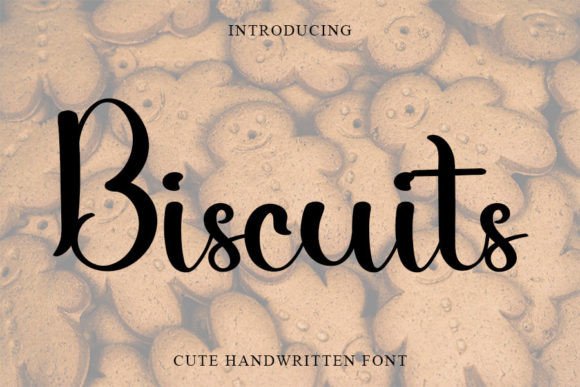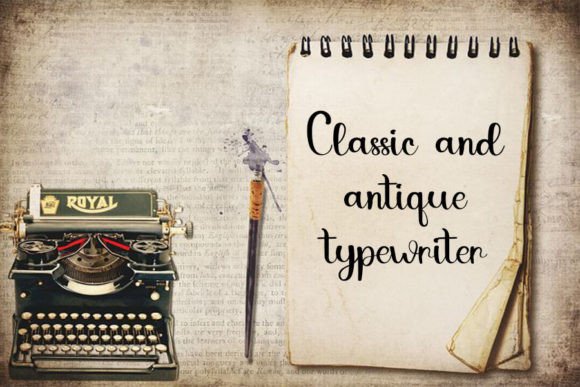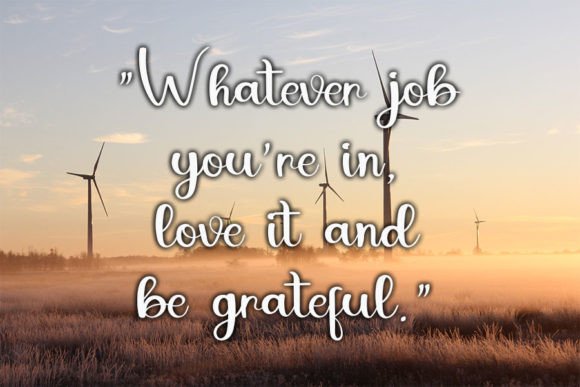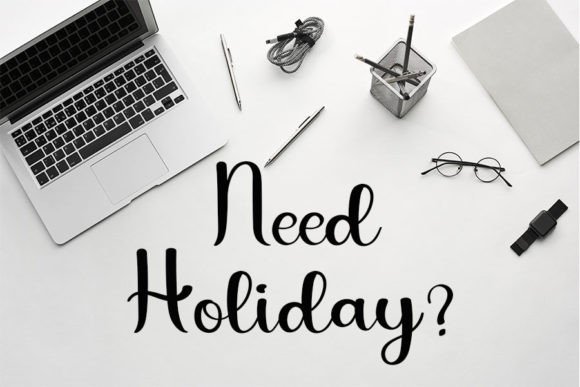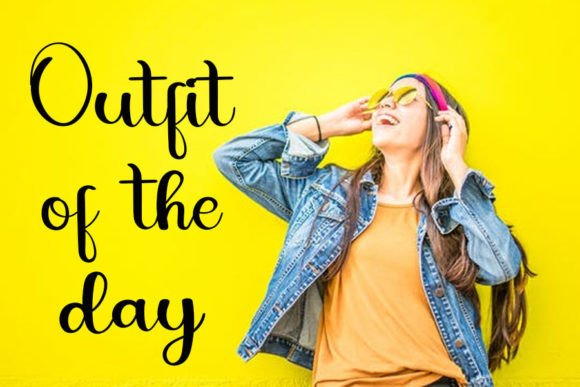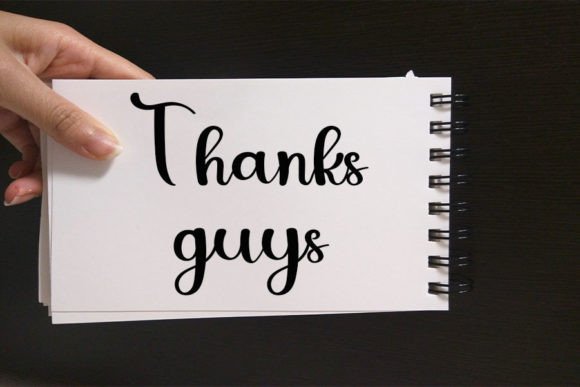
Biscuits Font
Biscuits Handwritten Font – Cute and Casual Typeface
The Biscuits Handwritten Font is a playful and stylish typeface that brings friendliness and charm to any design. With its casual handwritten strokes and natural flow, it offers a unique balance of simplicity and creativity. Whether you’re creating Instagram posts, greeting cards, or DIY calligraphy projects, this font ensures your work feels warm and personal.
A Handwritten Script with Personality
The Biscuits Handwritten Font blends smooth handwritten curves with neat proportions. Its casual look is approachable, while its clarity makes it easy to read. This balance of friendliness and usability makes it ideal for both professional and personal creative work.
Perfect for Instagram and Greeting Cards
One of the best uses of the Biscuits Handwritten Font is in social media content. It gives Instagram posts a natural, handwritten vibe that helps designs stand out. It also works beautifully for greeting cards, thank-you notes, and invitations, making it a go-to choice for projects that need a heartfelt feel.
The Biscuits Handwritten Font adapts seamlessly across different applications. From posters and product packaging to branding and DIY crafts, its casual handwritten style makes designs look authentic. Because it works in both print and digital contexts, it’s a versatile font for any project.
Why Designers Love Biscuits Font
Designers value the Biscuits HandwrittenFont because it combines charm with practicality. Its cute handwritten strokes make it fun for decorative projects, while its clarity ensures it is professional enough for branding. This dual quality makes it a reliable addition to any font library.
In summary, the Biscuits HandwrittenFont is a cute, casual, and versatile typeface. With its playful handwritten strokes, quick installation, and wide usability, it is perfect for Instagram posts, greeting cards, calligraphy, and DIY projects. Don’t miss the chance to download Biscuits HandwrittenFont and give your next project a warm, creative touch.